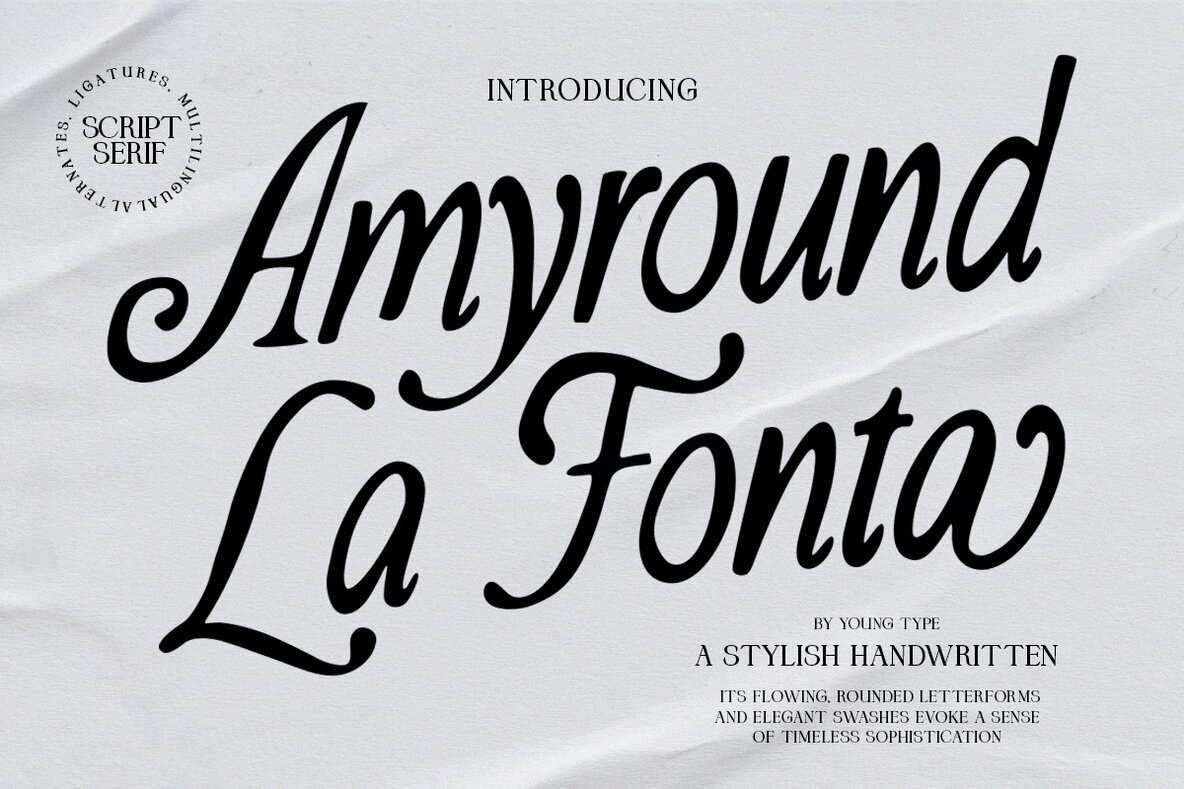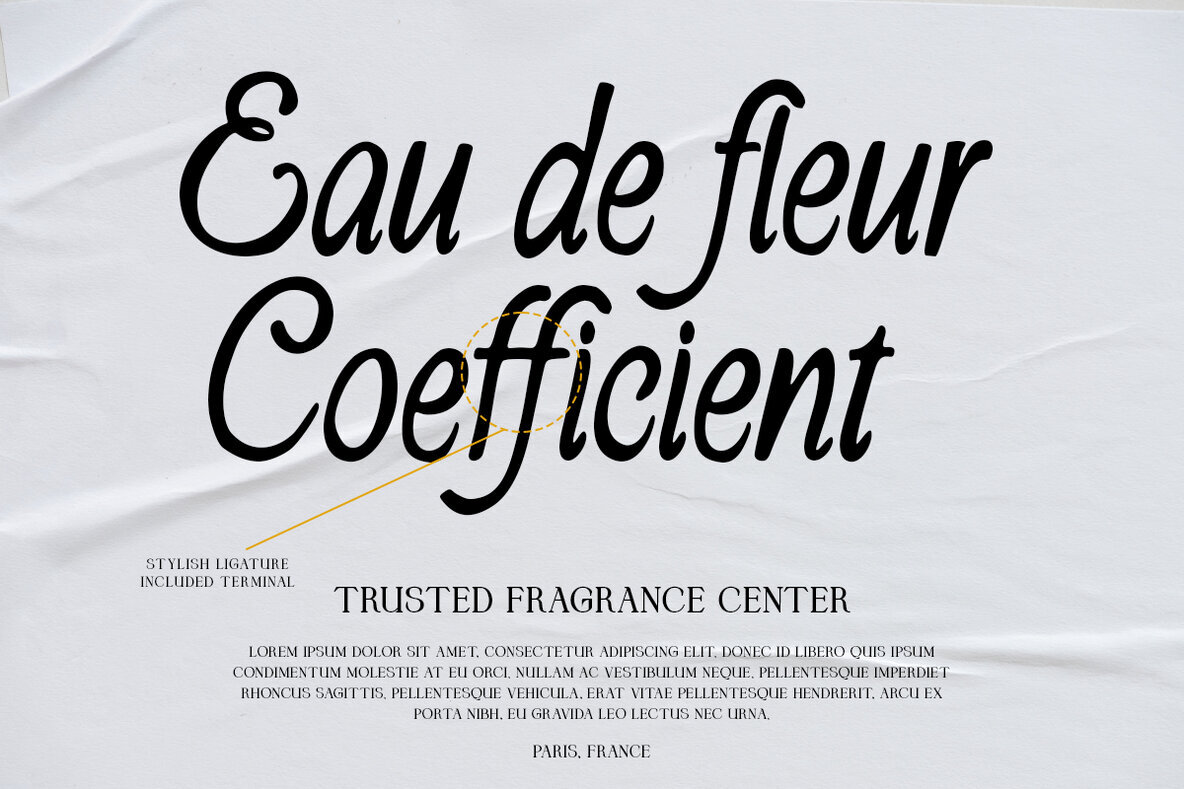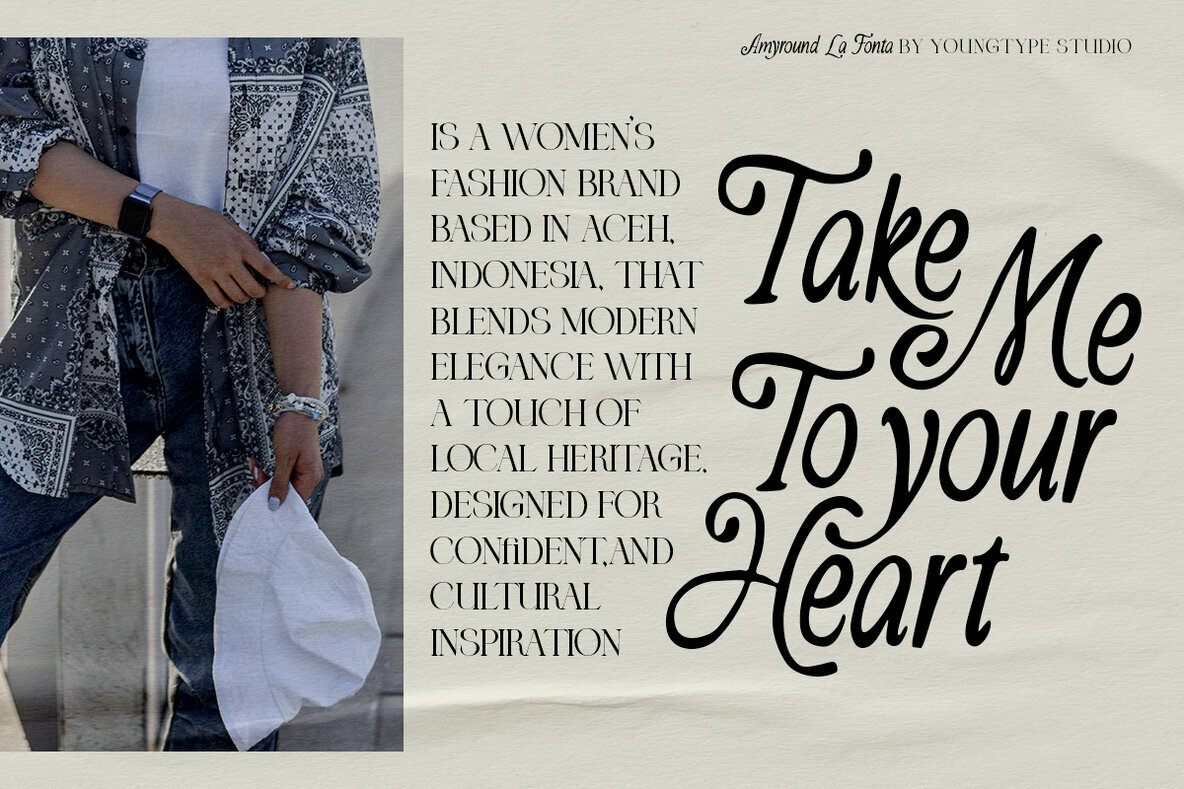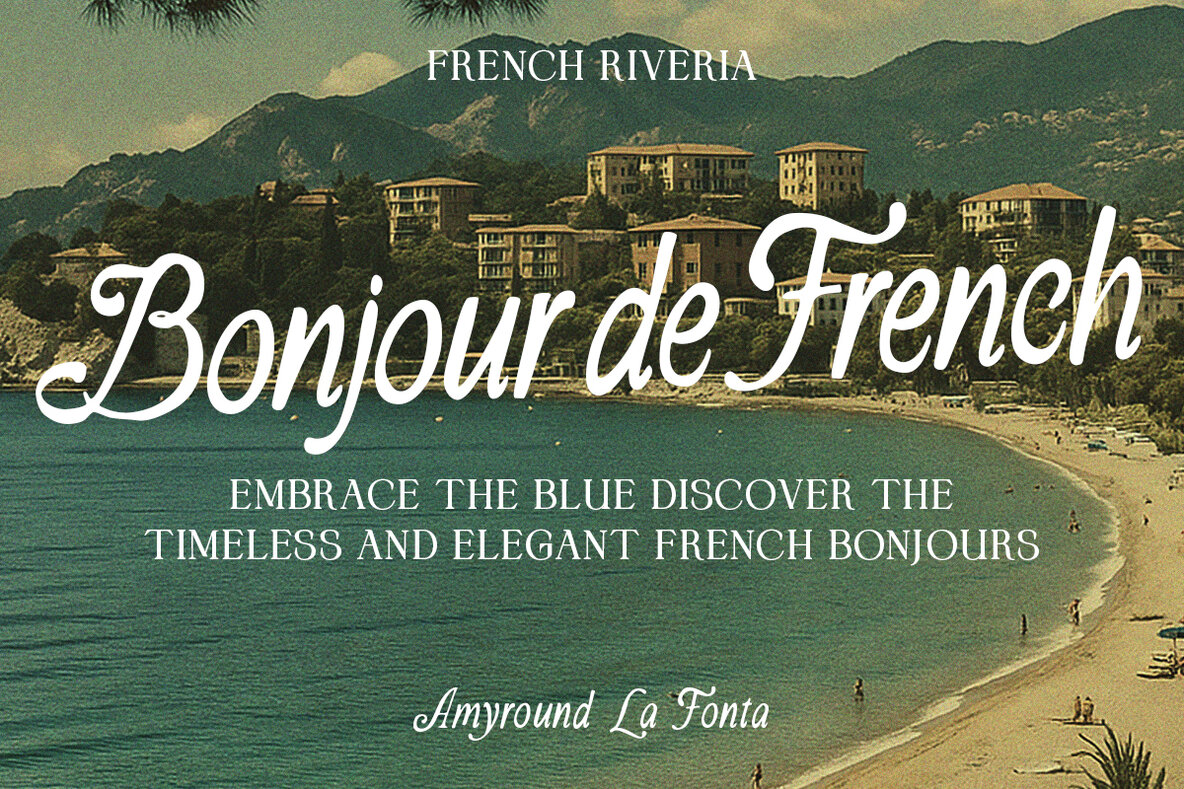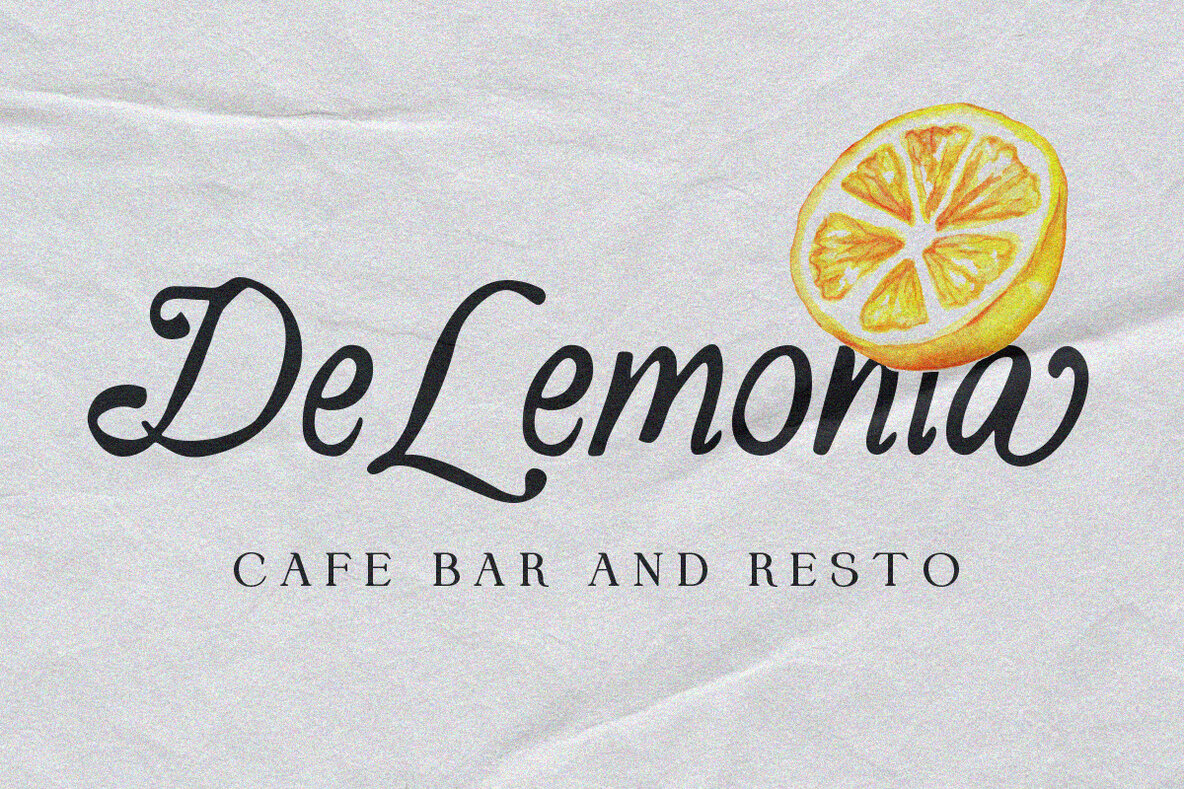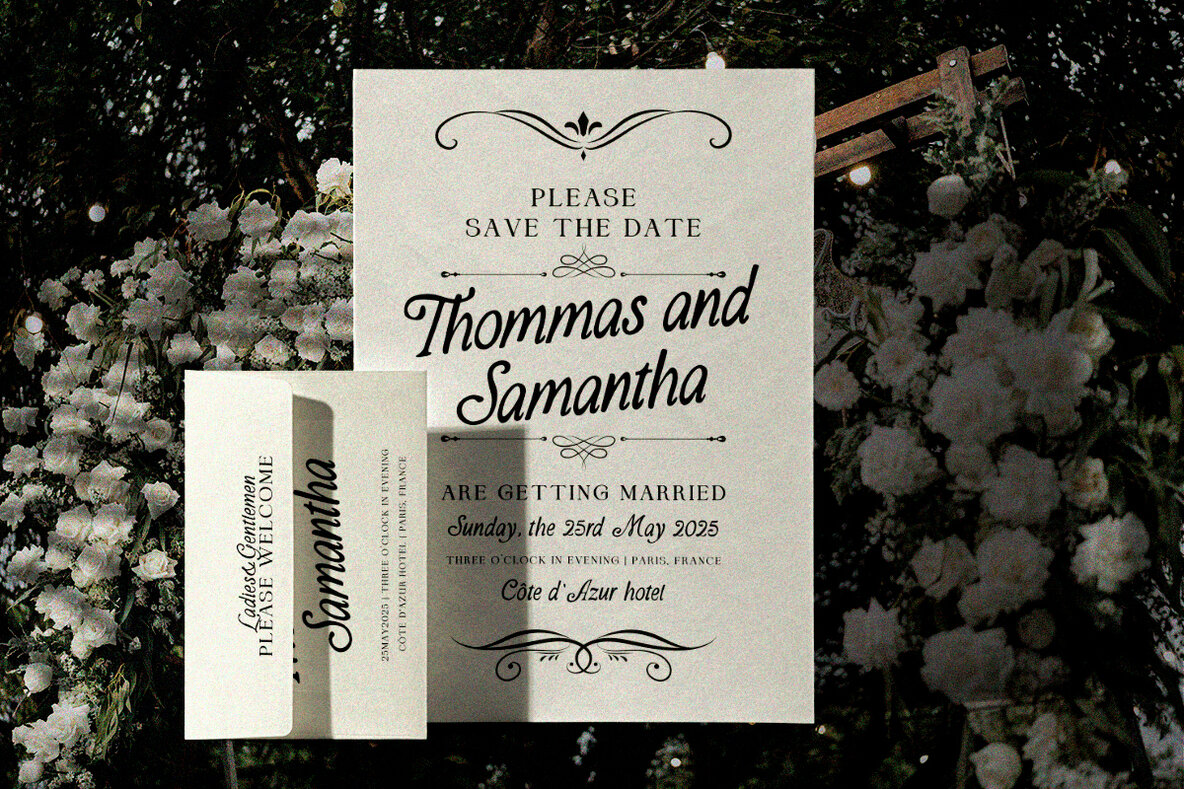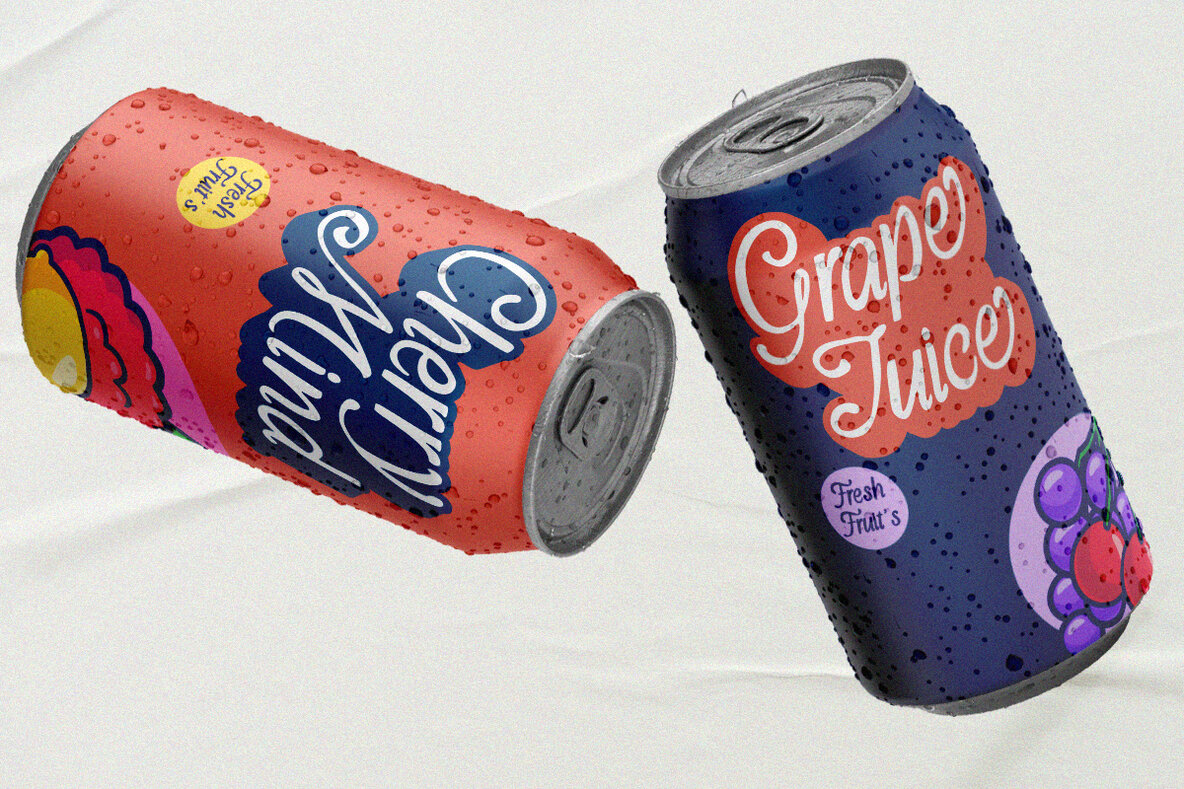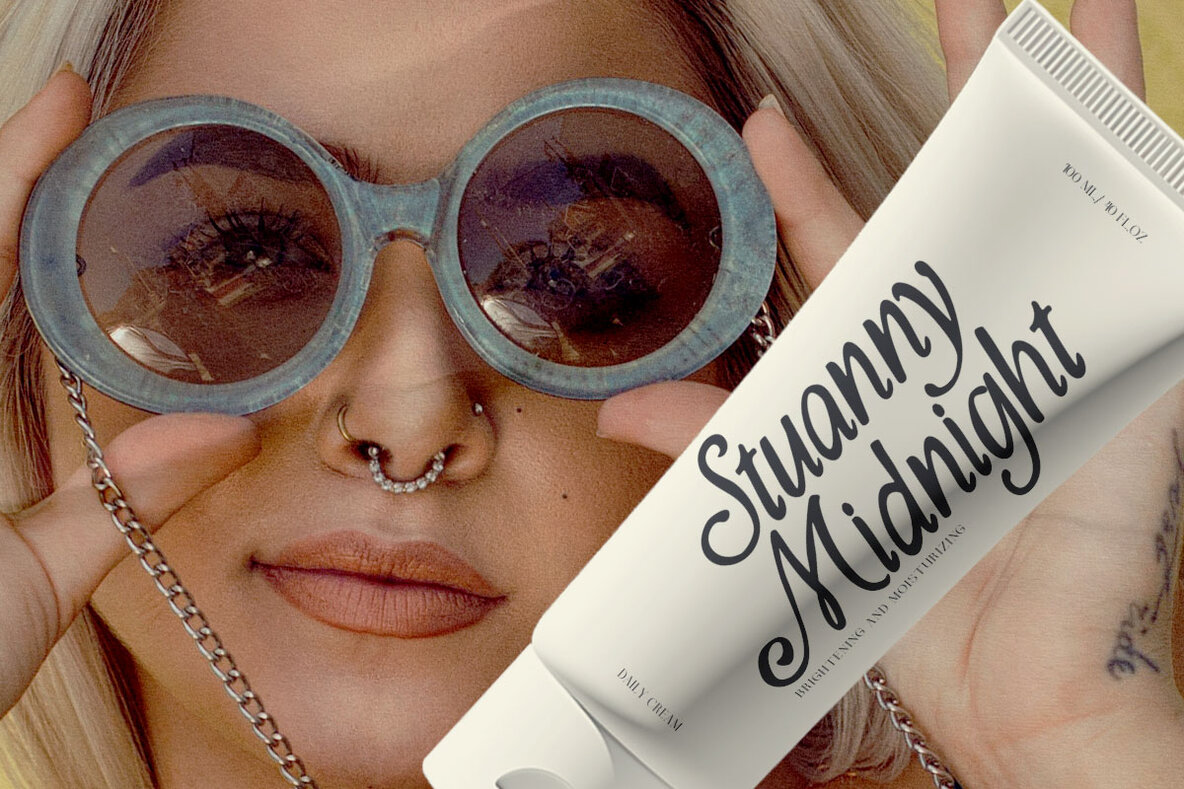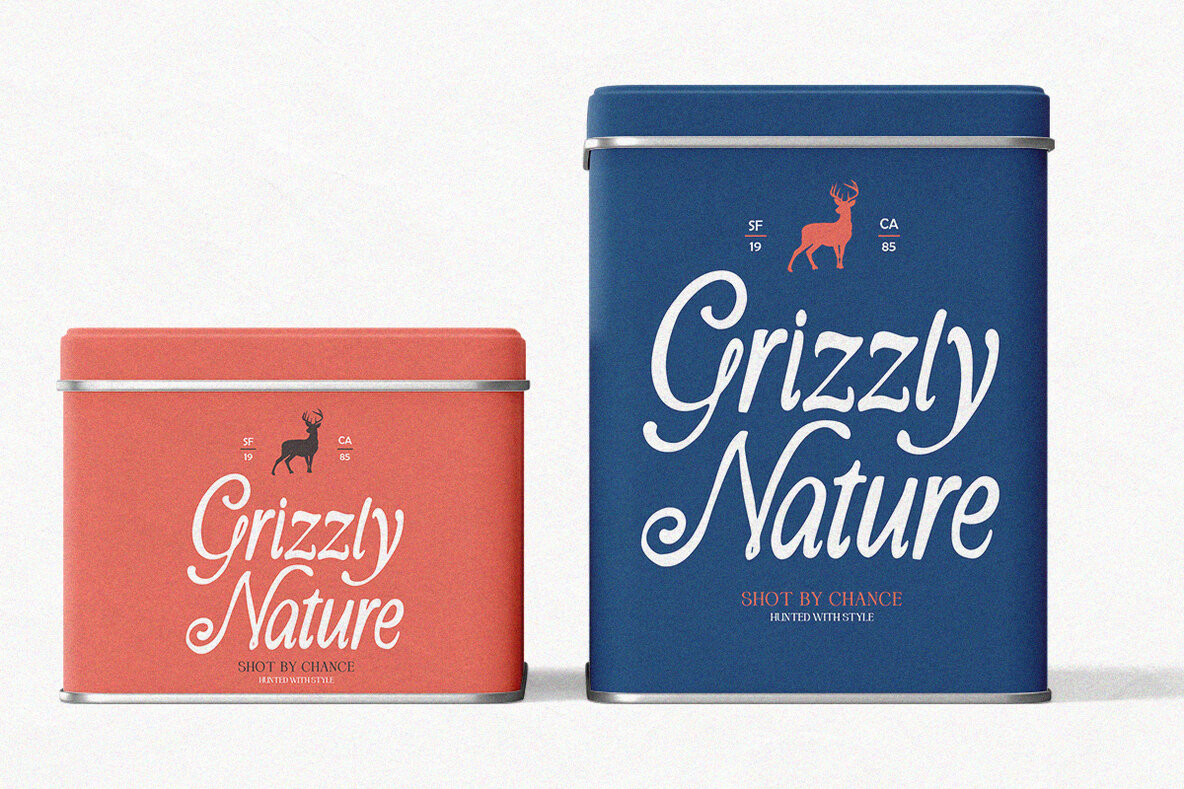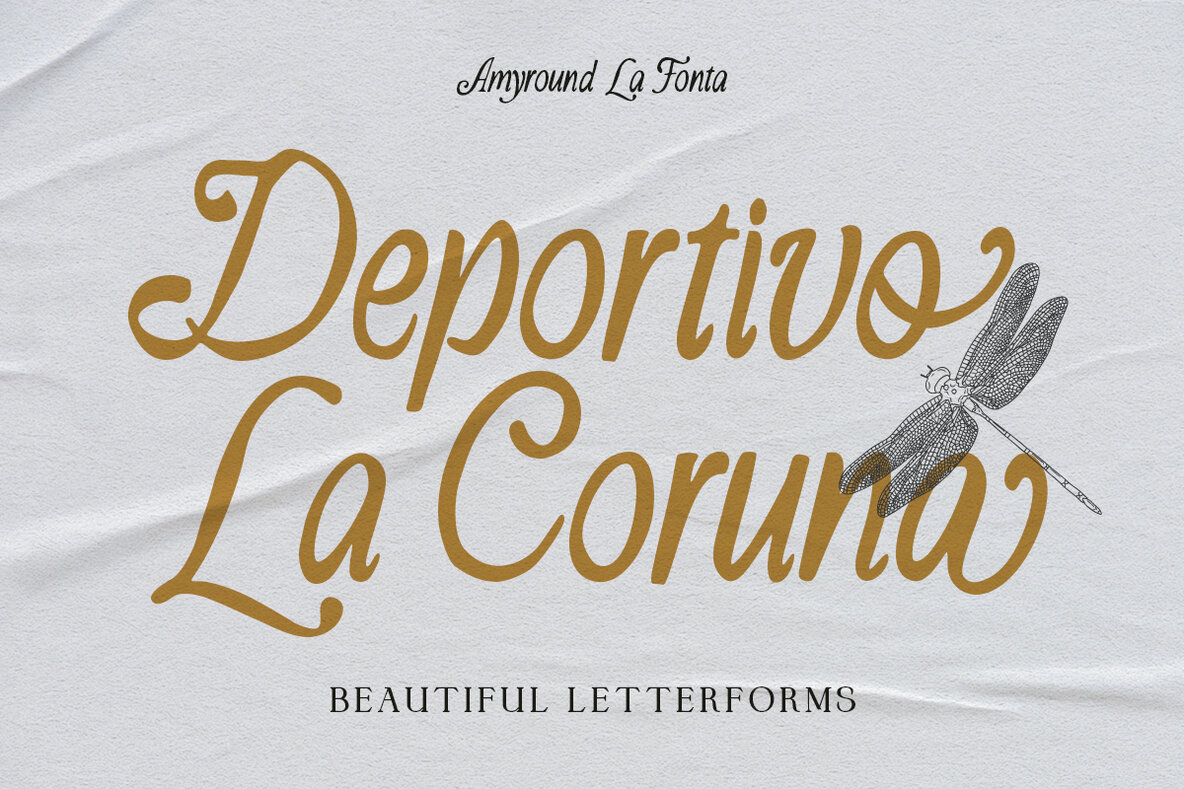
Amyround La Fonta
The Amyround La Fonta typeface family gracefully juxtaposes two distinct, yet harmonious styles. This collection encompasses an elegant script paired seamlessly with a refined serif. The script style delights with its smooth, flowing letterforms, adorned with graceful curves and stylish swashes. This captures an essence of femininity and artistic sophistication. In contrast, the serif style presents a high-contrast, all-caps design, marked by sharp, classic details that convey timeless elegance and strength. The union of these styles caters to versatile applications across branding, editorial, and fashion-forward design, allowing expressive combinations that marry softness with structure.Amyround La Fonta: Dual Elegance in Typography